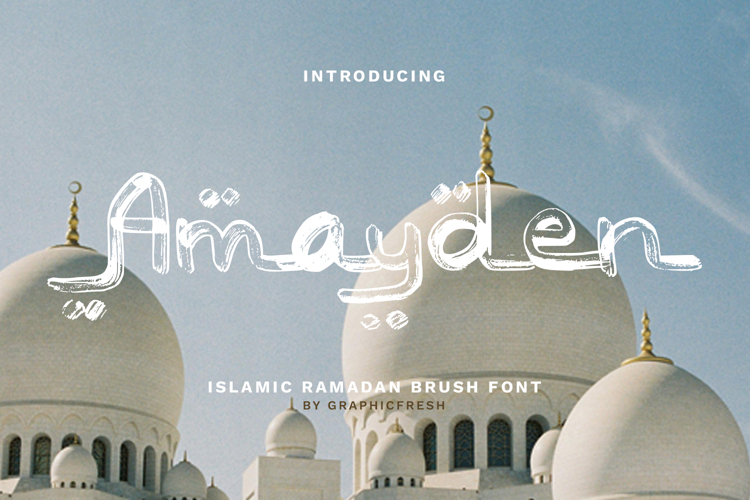
Amayden - The Islamic Ramadan Brush Font
Amayden is an Islamic Ramadan brush font inspired by elegant handwritten strokes and spiritual warmth. Designed with a soft yet expressive brush texture, this font captures the beauty, serenity, and festive atmosphere of the holy month. Its graceful flow and handcrafted character make it perfect for Ramadan branding, greeting cards, invitations, social media graphics, Islamic quotes, and religious event promotions. Amayden blends modern brush energy with a respectful and refined aesthetic, creating a meaningful visual presence.